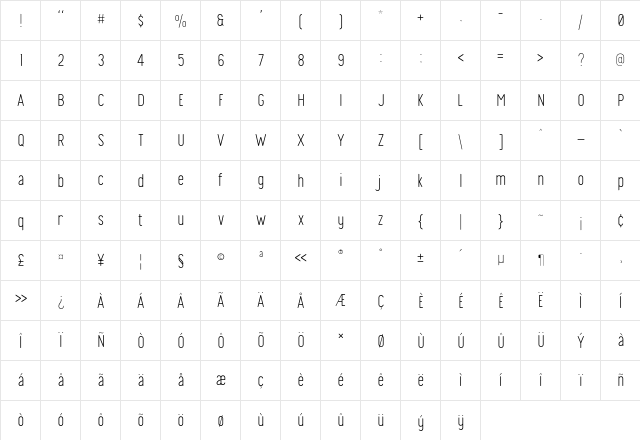
Finland Rounded Thin Regular Font Preview
Design Context for Finland Rounded Thin Typeface
Finland Rounded Thin uses gentle rounded endings to create a warm, inviting typographic personality — less corporate than geometric sans, more refined than playful display fonts. Its slender proportions lend an understated elegance to any composition.
A natural fit for tech startups, health and wellness brands, children's products, and friendly consumer apps.
Font Pairing: Pairs well with a rounded or humanist sans for body copy, maintaining the friendly tone without relying on Finland Rounded Thin to carry extended reading.
Pro Tip: Pair Finland Rounded Thin with a geometric sans for a balanced system — the rounded softness works as a warm counterpoint to harder-edged companions.